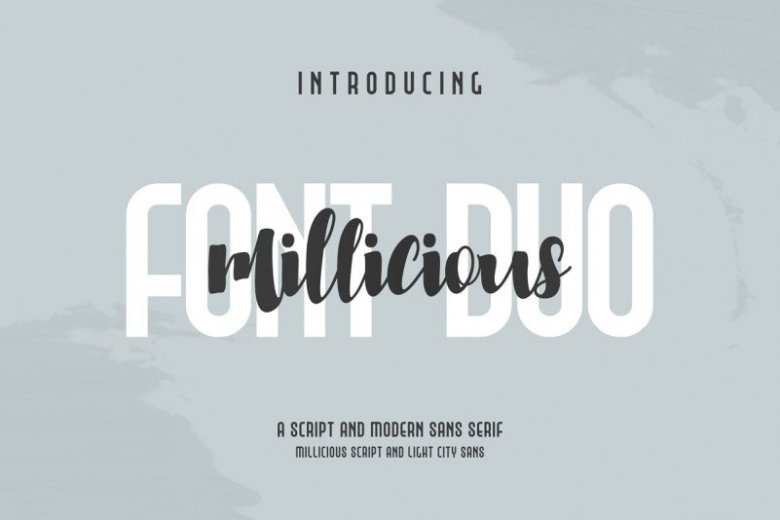
Millicious Font Duo
This is a cool and charming font duo. When combined, these two fonts will add a unique spark to any design project! Introducing Millicious Script! Where this font contains beautiful script handwriting fonts, and one is a modern sans serif font. It’s perfect for branding projects, logo, wedding designs, social media posts, advertisements, product packaging, product designs, label, photography, watermark, invitation, stationery and any projects.